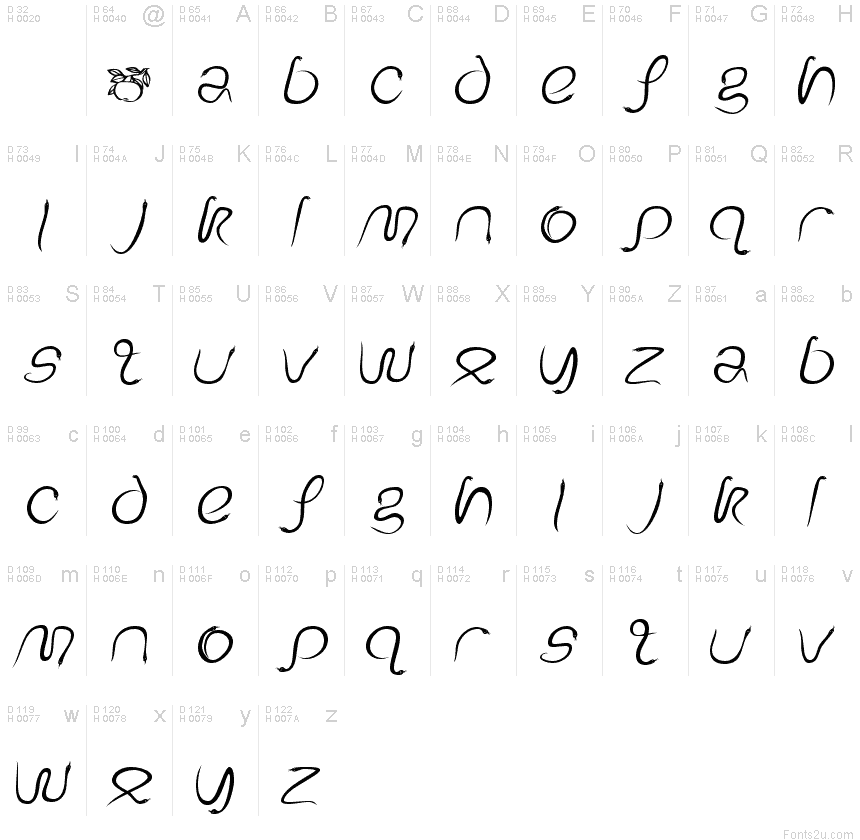
EdenDisplay Italic
EdenDisplay Italic font by Weatherly Systems is a free decorative handwritten script typeface with a sly, vine-like twist. Its narrow, curling strokes and inky, slightly rough edges feel like they were scratched onto paper with a quick, confident pen, giving every word a sense of movement and whispered drama.
Using EdenDisplay Italic, titles instantly gain a storybook, slightly mysterious mood that shines on fantasy book covers, magical event invitations, boutique branding, quote graphics, packaging, and theatrical posters. This free font works best at larger sizes where its looping details can breathe; pair it with a clean, unobtrusive sans serif for supporting text.